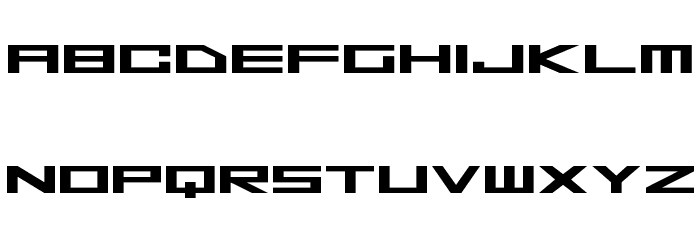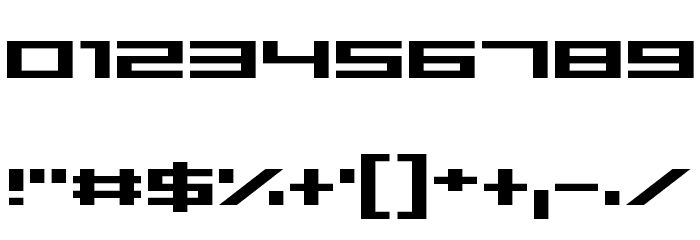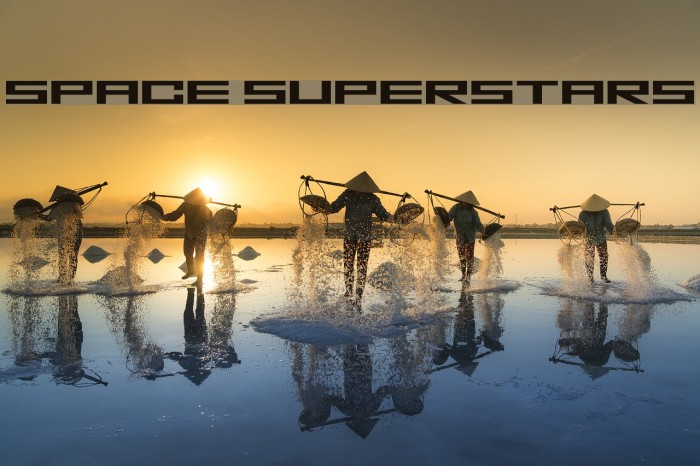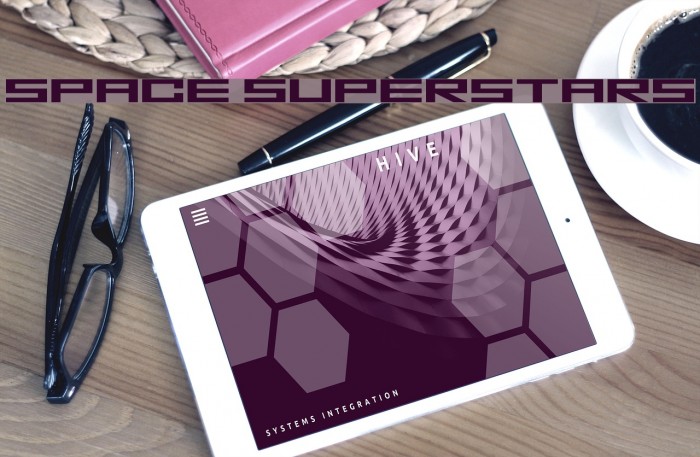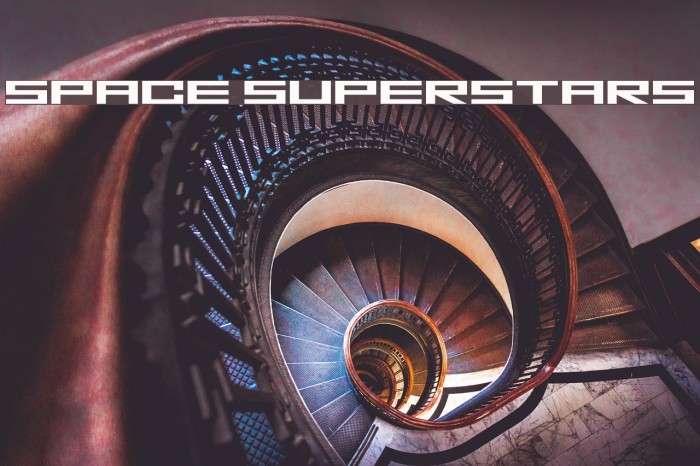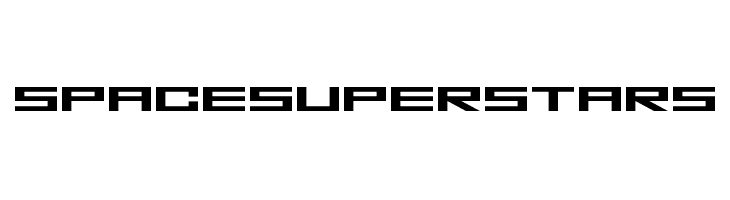
Space Superstars Font
This font features a futuristic and geometric design, characterized by its bold and angular letterforms. The uppercase letters are uniform in height, with sharp edges and a consistent stroke width that gives a sense of strength and modernity. The lowercase letters maintain the same geometric style, offering a cohesive look across the typeface. The numerals are equally bold and angular, ensuring readability while maintaining the overall aesthetic. Special characters are designed with the same attention to detail, making them suitable for various design needs. The font's style is reminiscent of sci-fi themes, making it ideal for projects that require a modern and technological feel.
A bold, futuristic font with geometric and angular letterforms.
- Proposed Projects: Ideal for sci-fi themed designs, technology branding, video game titles, and futuristic posters.